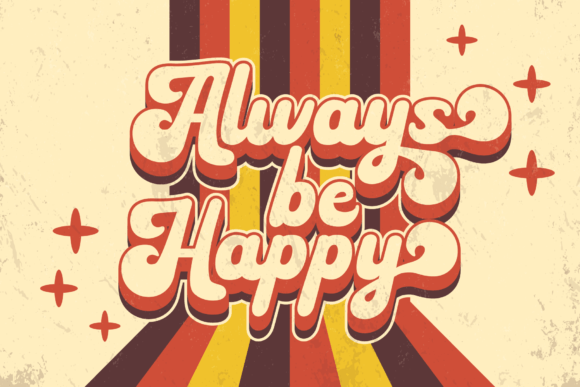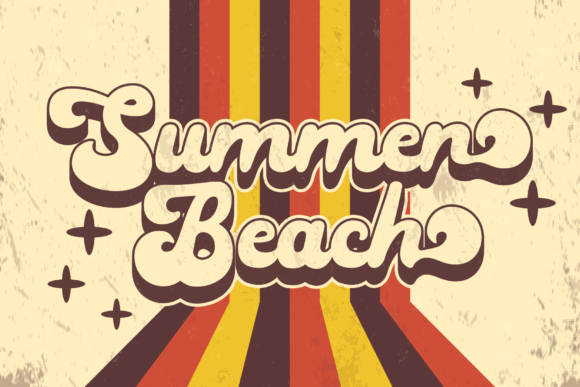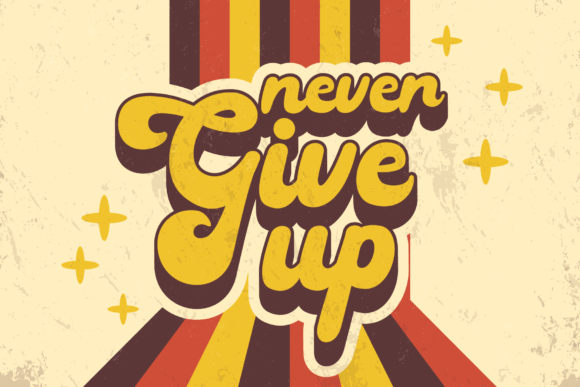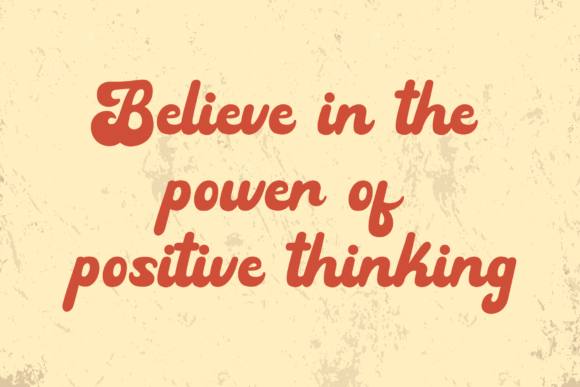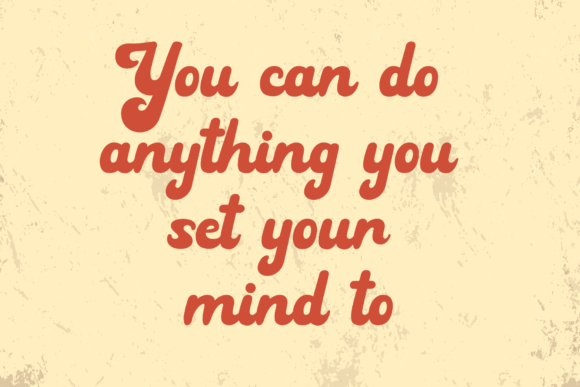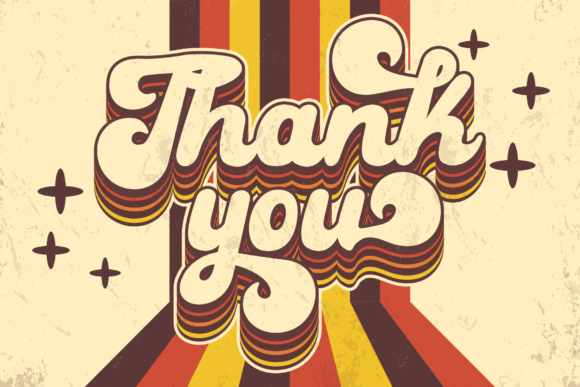
Unleash Your Inner Retro Designer
Have you ever stumbled upon an old photograph, a vintage poster, or a classic movie title and instantly felt the urge to recreate that nostalgic charm in your design work? You’re not alone. Many designers struggle to capture the essence of a bygone era, but with the right tools, anything is possible.
Enter the Funky Retro Font, a cool, vintage-style handwritten font that’s sure to transport your designs back in time. Perfect for adding that special retro touch to logos, branding, invitations, stationery, and much more, this font is a game-changer for any creative project. With its extensive glyph and swash collection, you’ll have endless possibilities at your fingertips.
Whether you’re a seasoned designer or just starting out, the Funky Retro Font is a valuable addition to your toolkit. Its PUA encoding ensures easy access to all its features, making it a breeze to use. So why not give it a try and unleash your inner retro designer today?
Funky Retro Font Key Features
- Unique Characteristics: Funky Retro Font features a distinctive, hand-drawn style with bold lines, rounded edges, and a distressed texture, giving it a nostalgic and eye-catching appearance.
- Font Style: The font is available in 2 styles: Regular and Bold, providing flexibility for designers to choose the perfect look for their project.
Funky Retro Font Review
Funky Retro Font is a font that screams nostalgia, and I’m not just talking about the 80s. It’s a fun, quirky font that’s perfect for adding a touch of retro flair to your designs. ✨ The bold lines, rounded edges, and playful feel make it ideal for creating eye-catching headings and titles.
- Perfect for retro-themed designs, such as posters, flyers, and websites.
- Works well for creating a fun, energetic atmosphere.
- Available in a range of weights and styles to suit different design needs.
However, there are some limitations to consider. ⚠️ The font can be a bit too playful, which may not be suitable for all design projects. Additionally, some characters may not be as crisp or clear as they could be, which can be a problem in certain situations.
Overall, I think Funky Retro Font is a great addition to any designer’s toolkit. It’s perfect for projects that need a bit of flair and personality. While it may not be the most versatile font, it’s definitely worth having in your collection. ✨
Funky Retro Font: A Practical Application Guide
The Funky Retro Font is perfect for:
- Creatives looking to add a retro touch to their designs
- Businesses wanting to evoke a sense of nostalgia and playfulness
- Designers seeking a unique and eye-catching font for their projects
To get the most out of the Funky Retro Font, experiment with different font sizes, colors, and combinations. Pair the font with bold shapes, bright colors, and textures to create a visually striking design.
Alternatives to Funky Retro Font
Great Vibes is a fun, casual font that’s perfect for adding a laid-back feel to your designs. It’s great for headings and titles, especially for music-related projects or anything with a retro vibe. Compared to Funky Retro Font, Great Vibes is more subtle and less kitschy, making it a better choice for designs that need a touch of nostalgia without going overboard.
Q: What is the recommended font size for optimal readability with Funky Retro Font?
We recommend using a font size between 14px and 24px for optimal readability with Funky Retro Font. This range provides a good balance between legibility and visual impact. However, feel free to experiment with different font sizes to find the perfect fit for your design project.